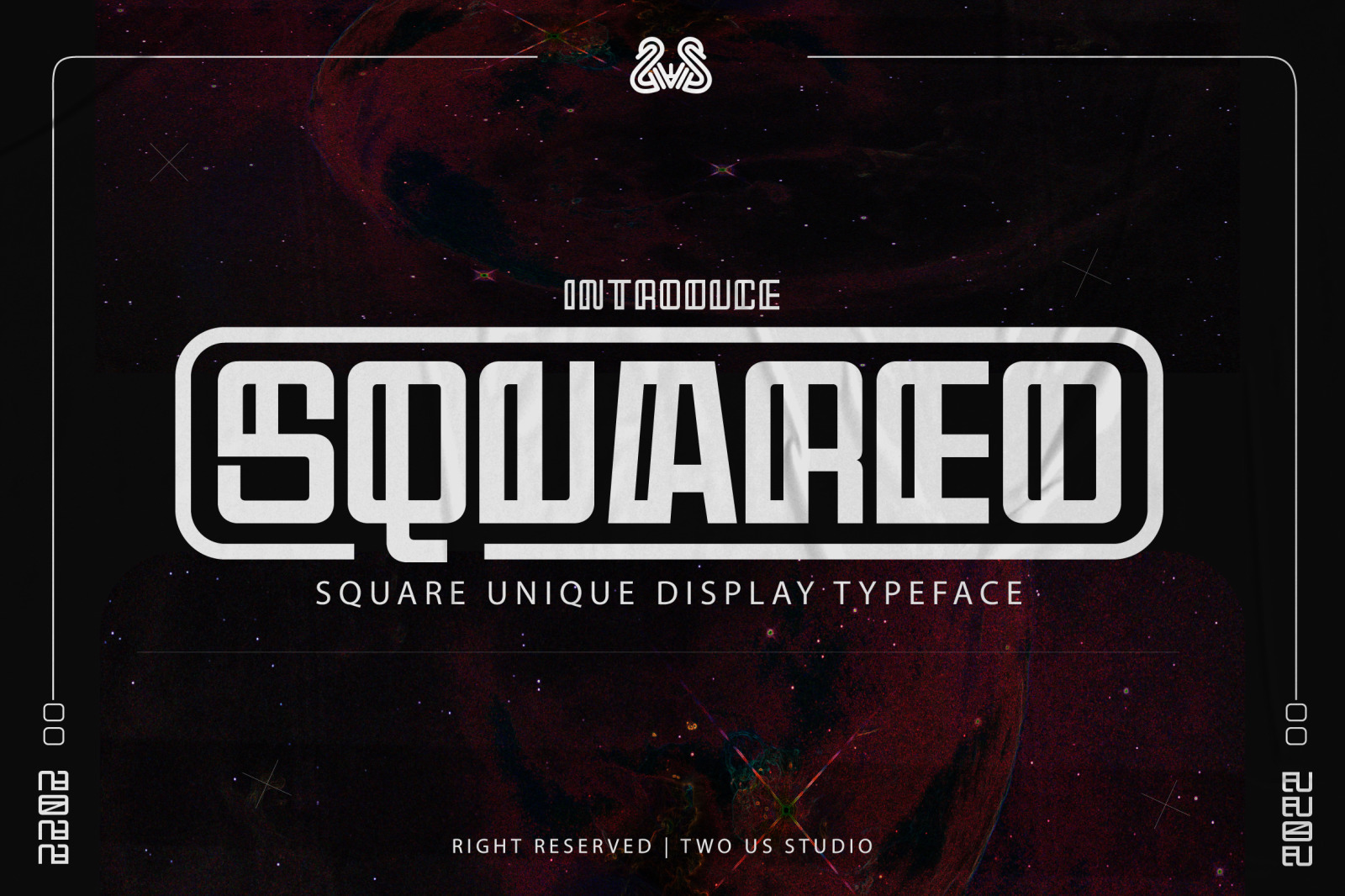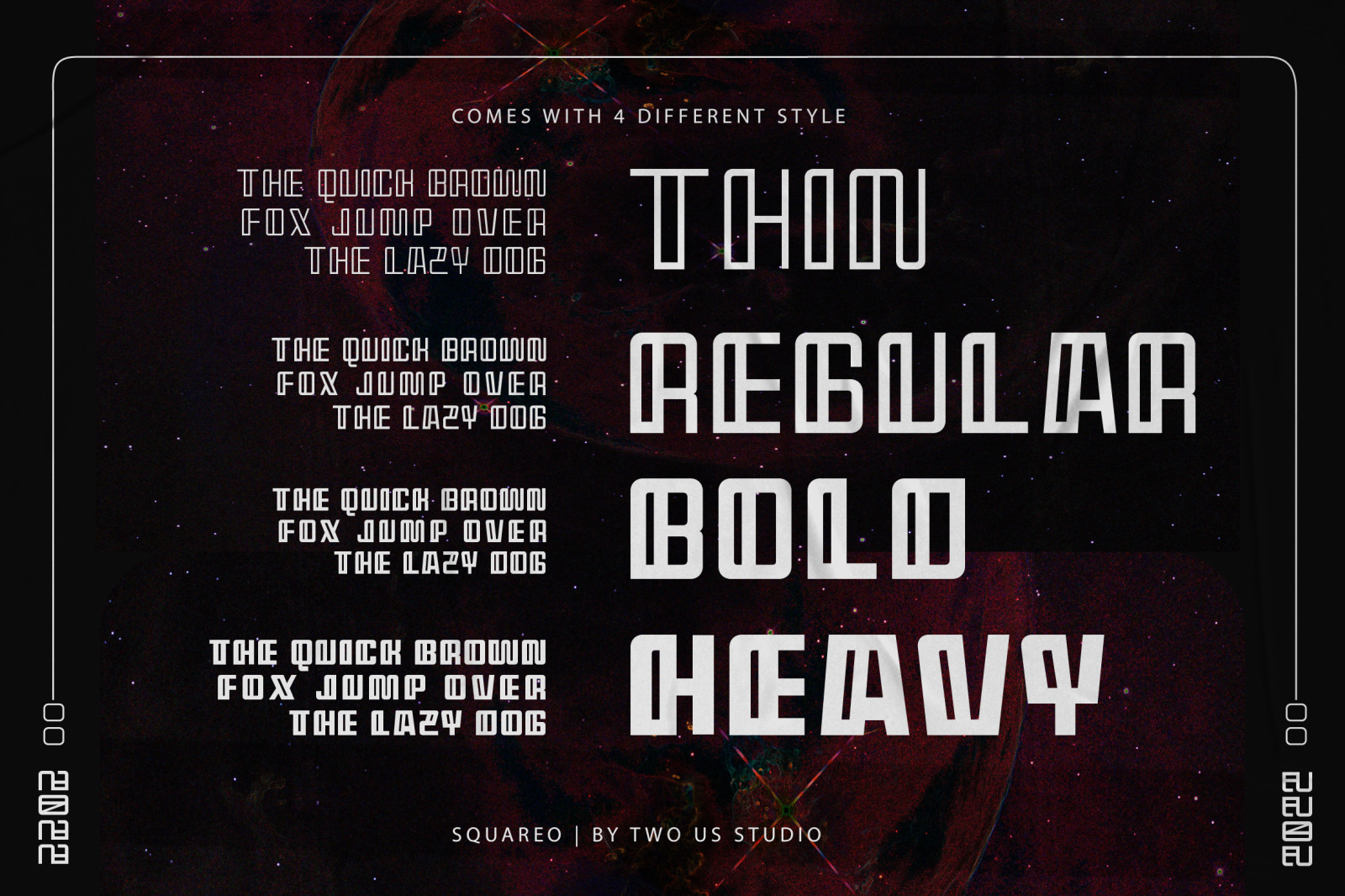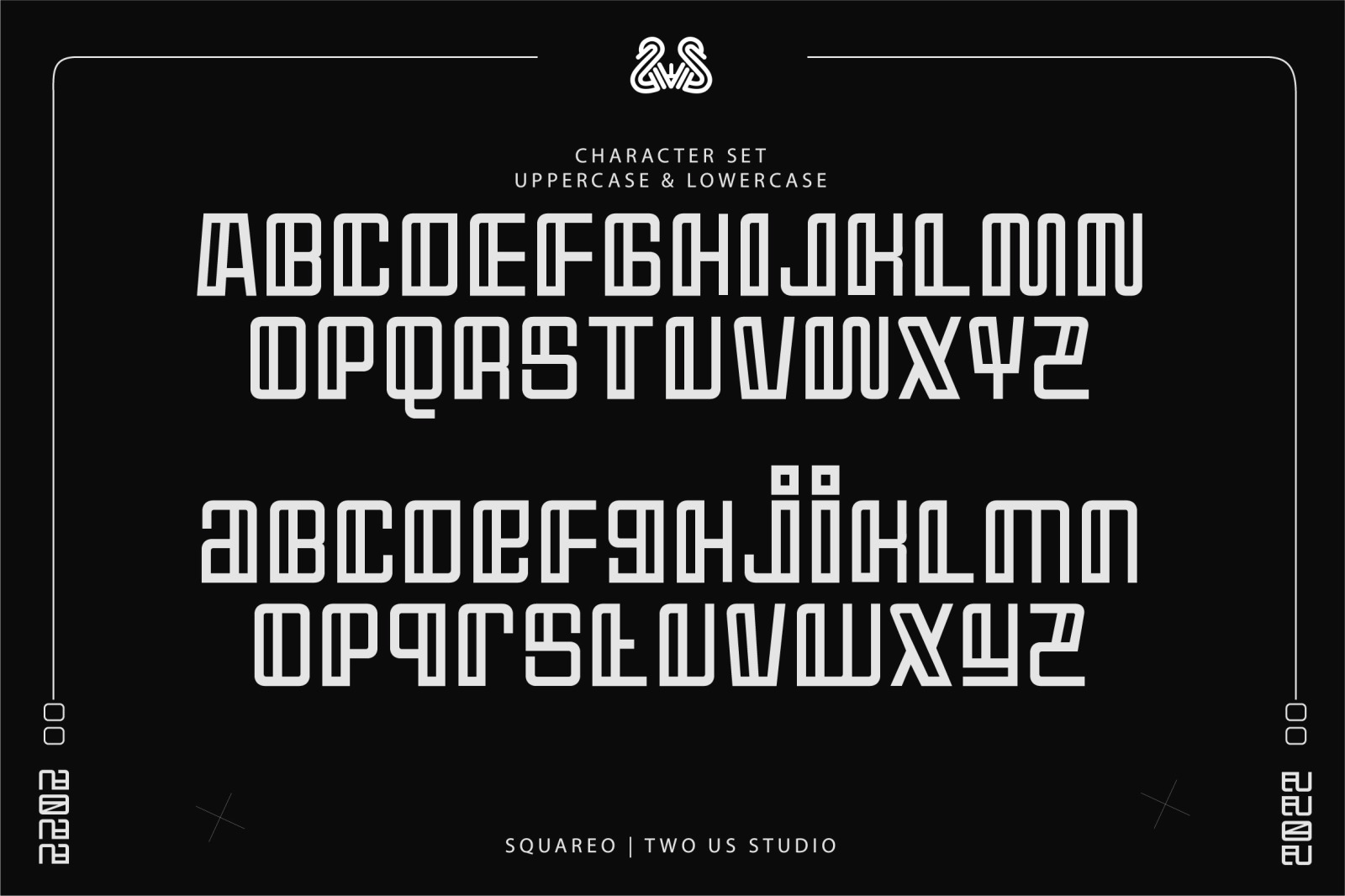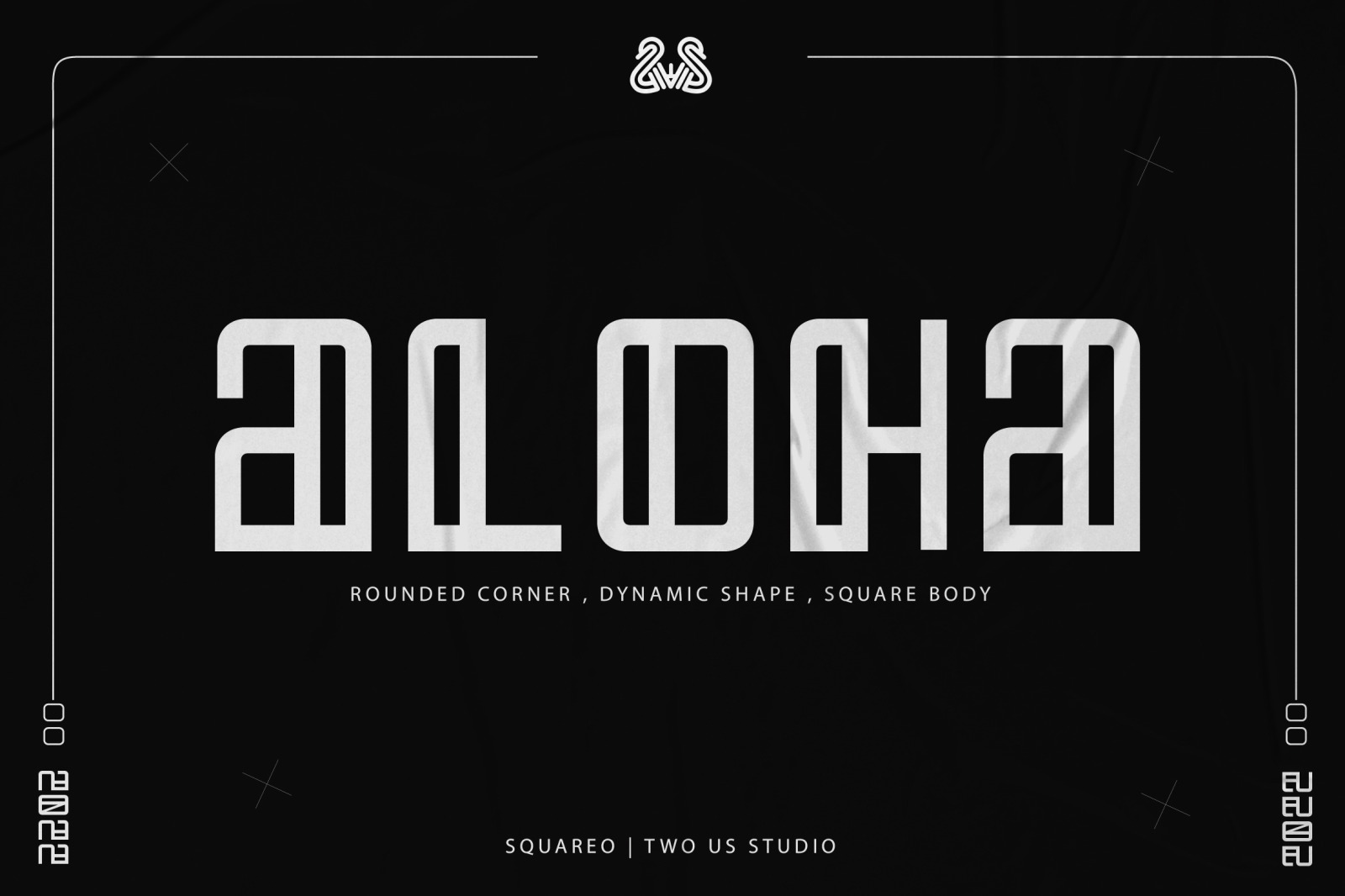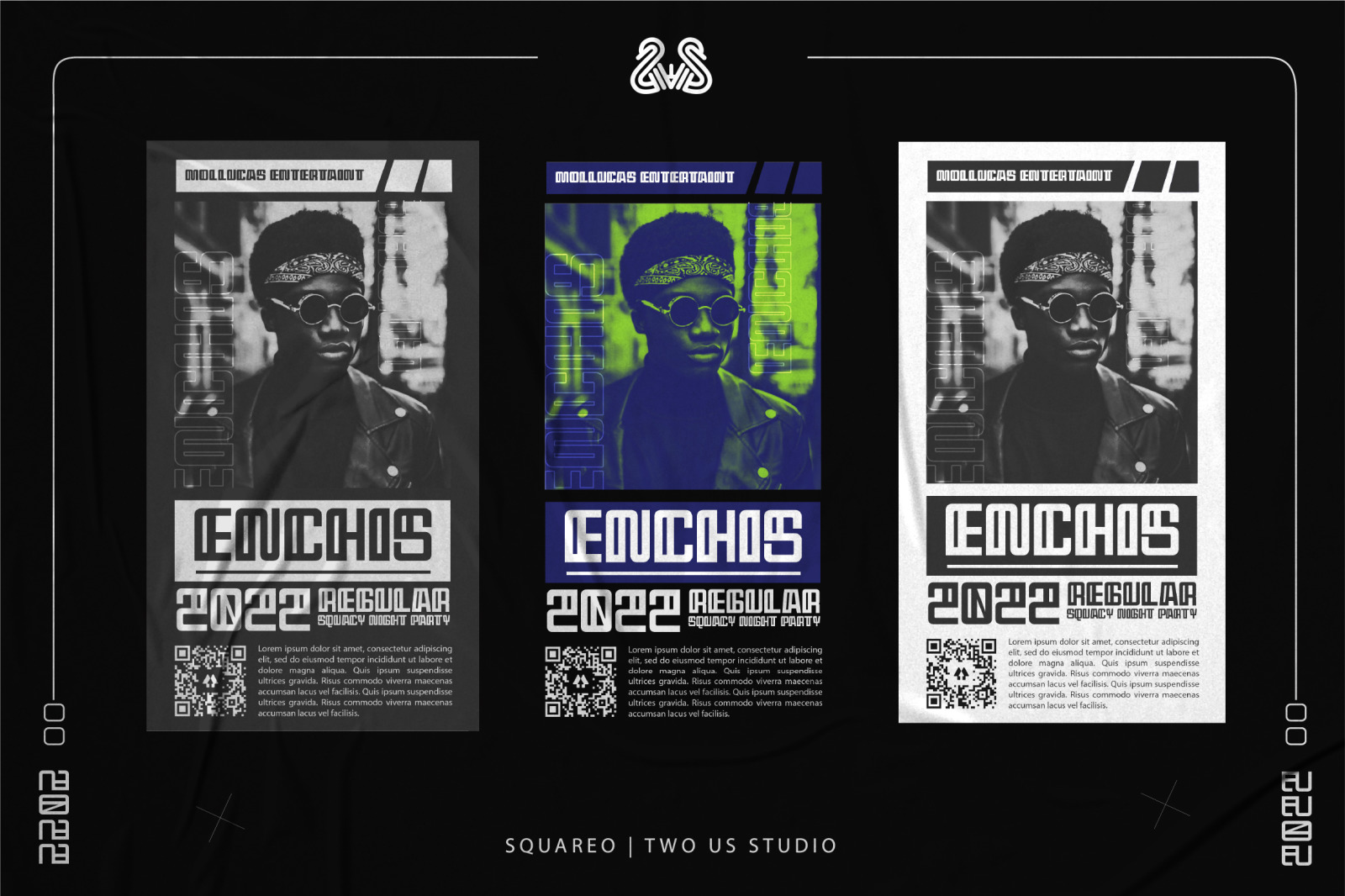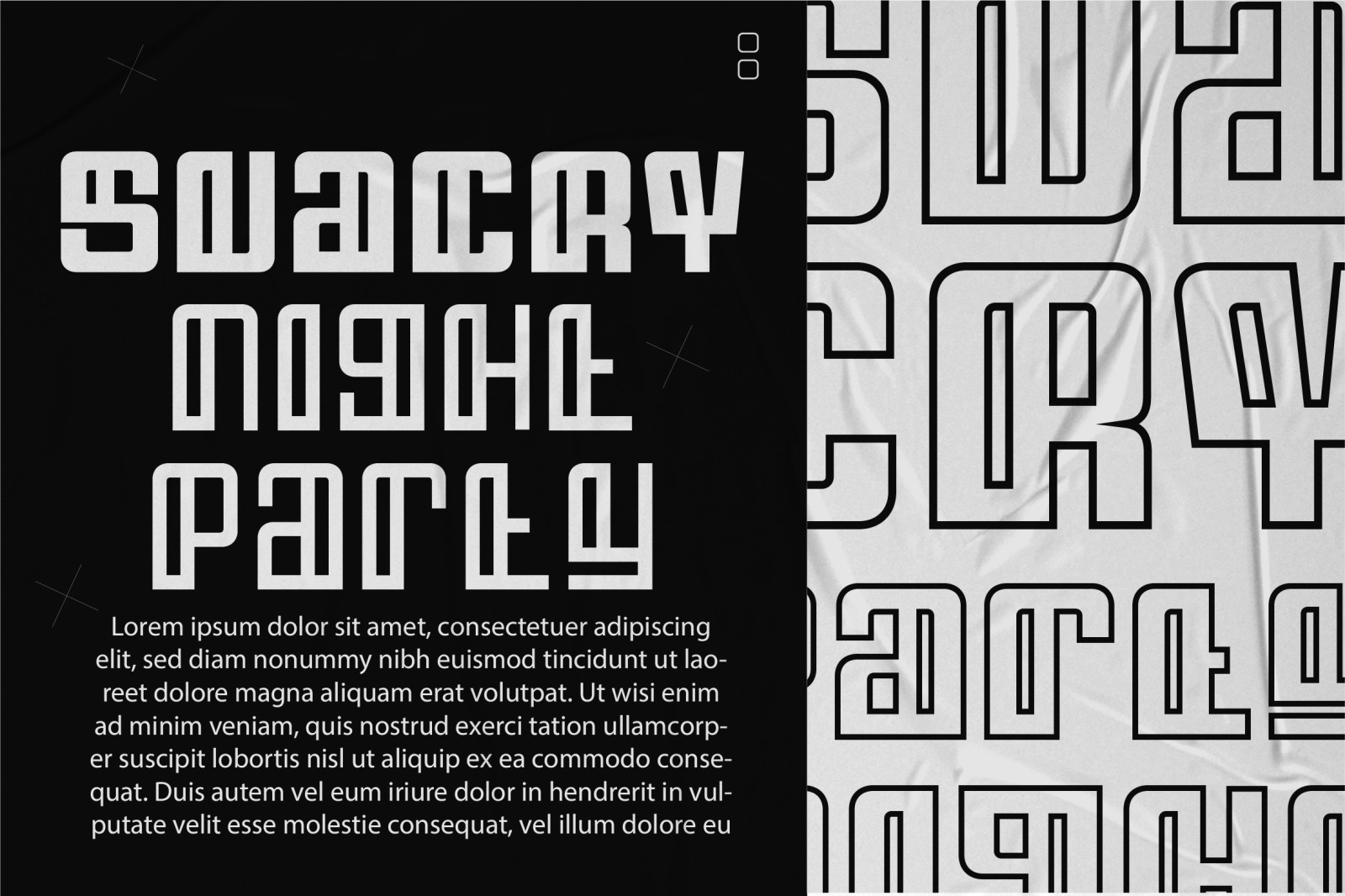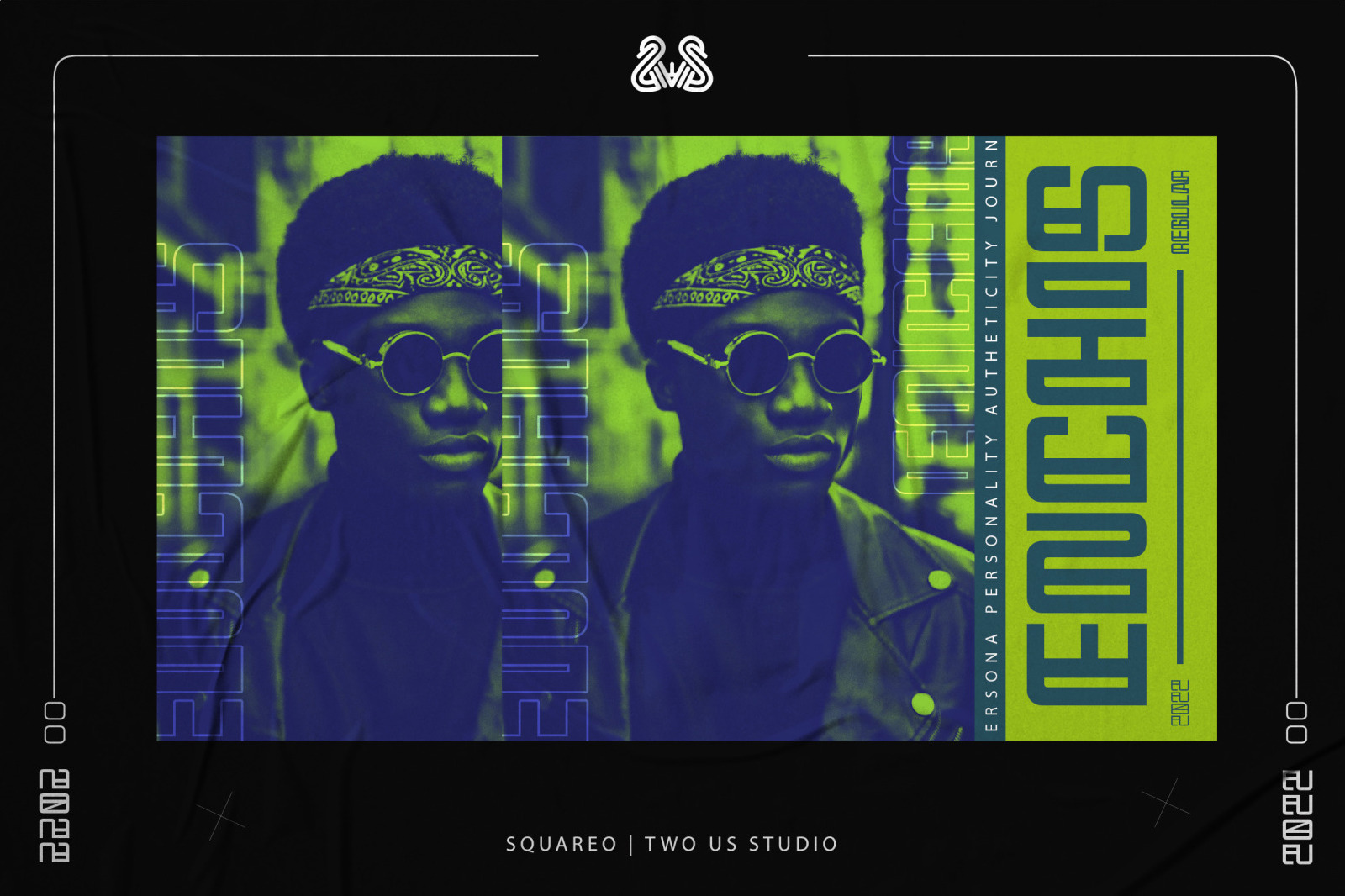
SQUAREO - DISPLAY TYPEFACE
Squareo is a cool, square-shaped, and thick-lettered display font. Add it confidently to your favorite creations and let yourself be amazed by the outcome generated. It can be used for books, magazine covers, social media posts, invitations, and so much more!